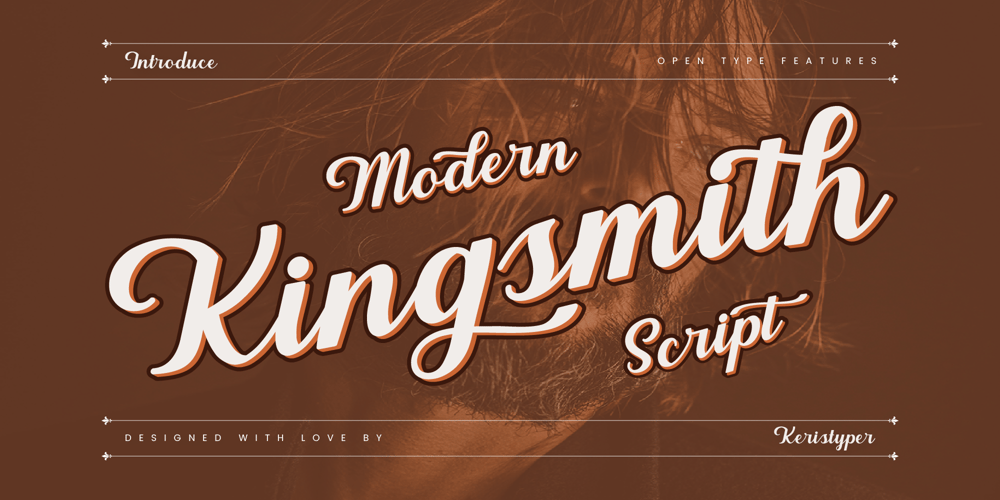
Kingsmith Font Family was designed by Tezar Tantular and published by Keristyper Studio. Kingsmith contains 1 styles and family package options. Kingsmith is a script typeface inspired by vintage typography and fonts in the 40s. The basic letters are simple but modified with stylistics to make it look more attractive, there are many alternatives. Great for logos, titles, t-shirts, packages, and anywhere else you need this kind of lined, legible script font.Kingsmith Font multilingual support: Afrikaans, Albanian, Catalan, Danish, Dutch, English, Estonian, French, Finnish, German, Icelandic, Indonesian, Italian, Malay, Norwegian, Portuguese, Spanish, Swedish, Zulu, and many more.What’s Included : Web Fonts Standard & Multilingual glyphs Ligature Works on PC & Mac Simple installations Accessible in Adobe Illustrator, Adobe Photoshop, Adobe InDesign, and even work on Microsoft Word. Hope you enjoy our font!